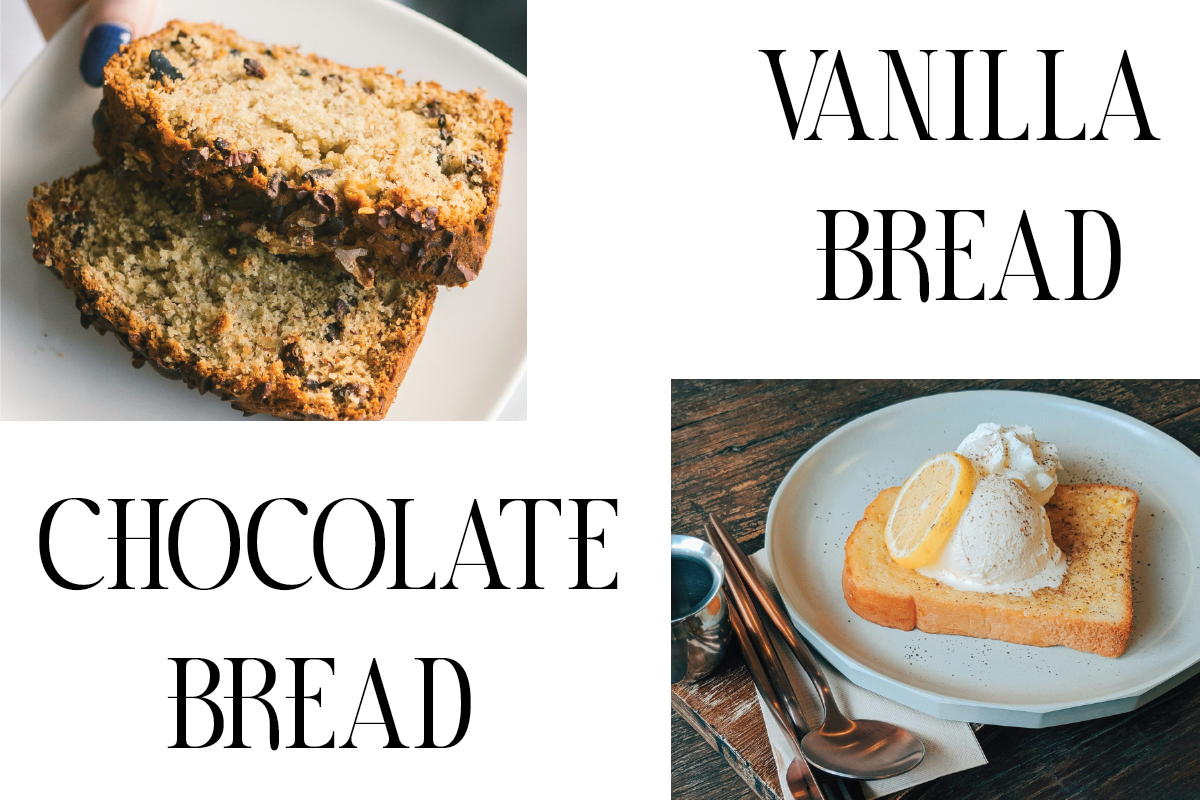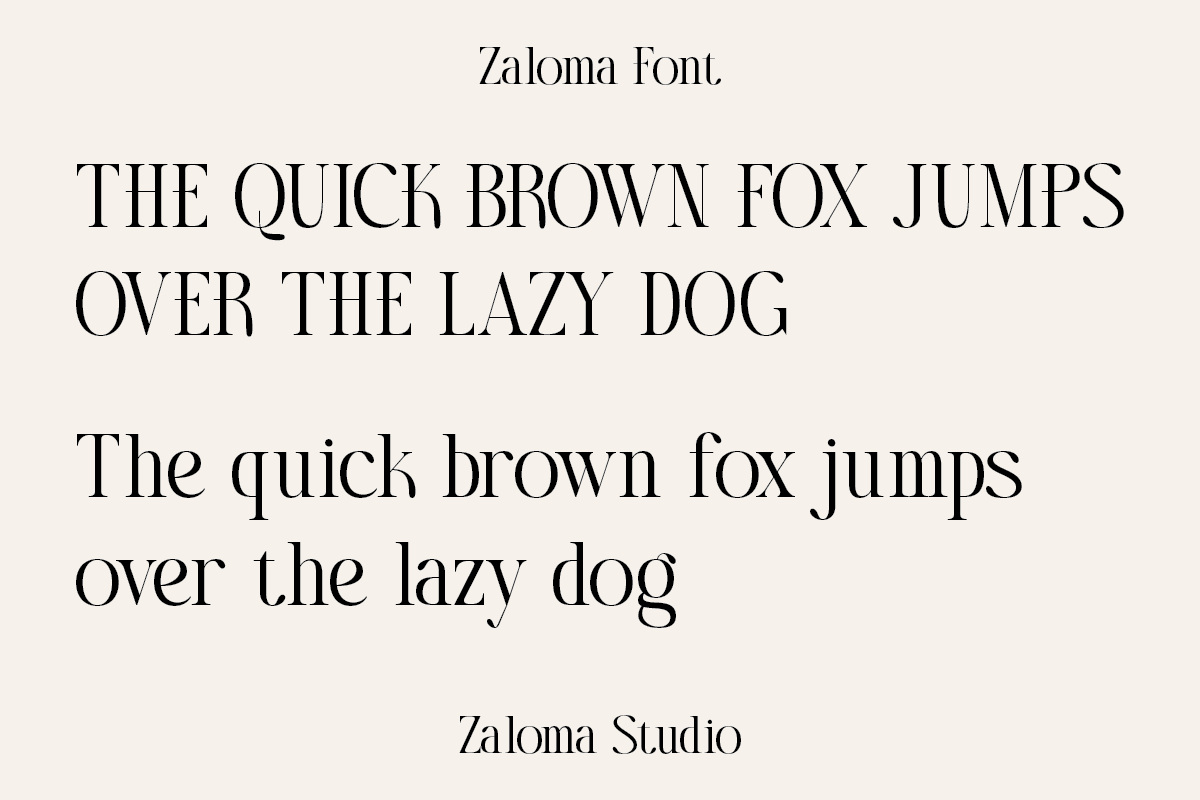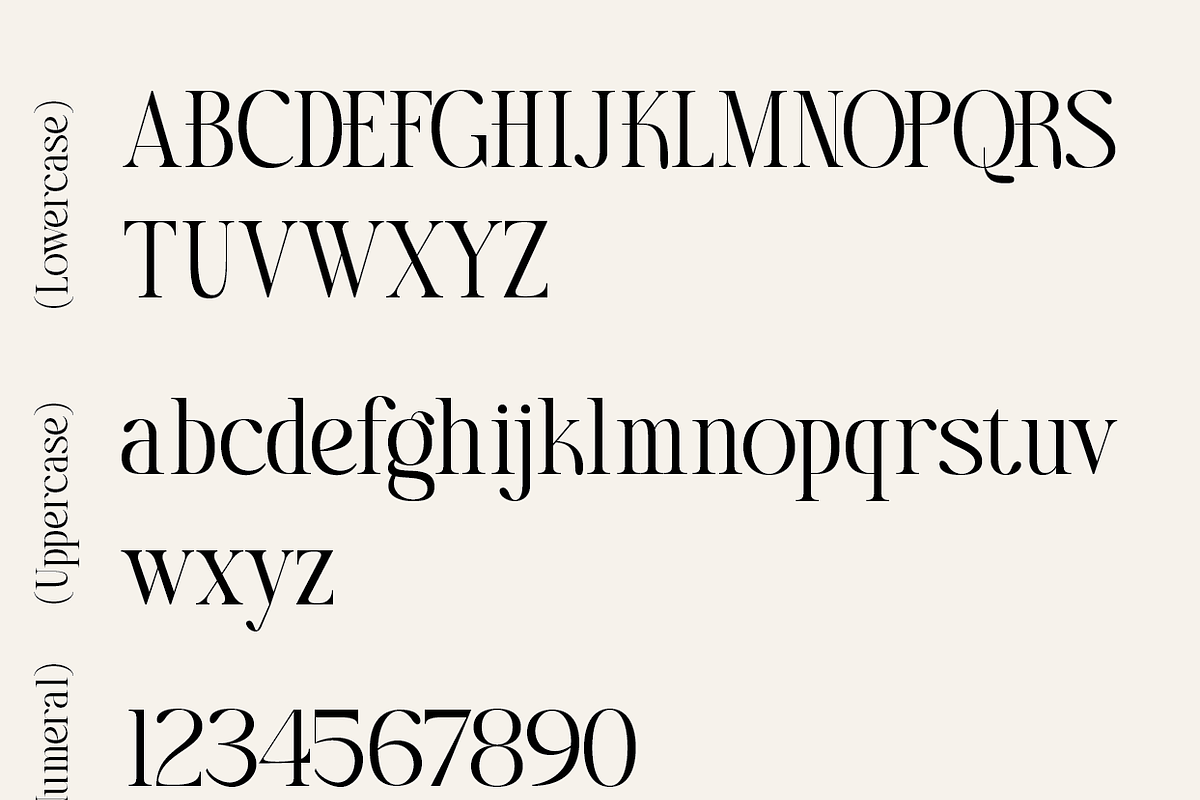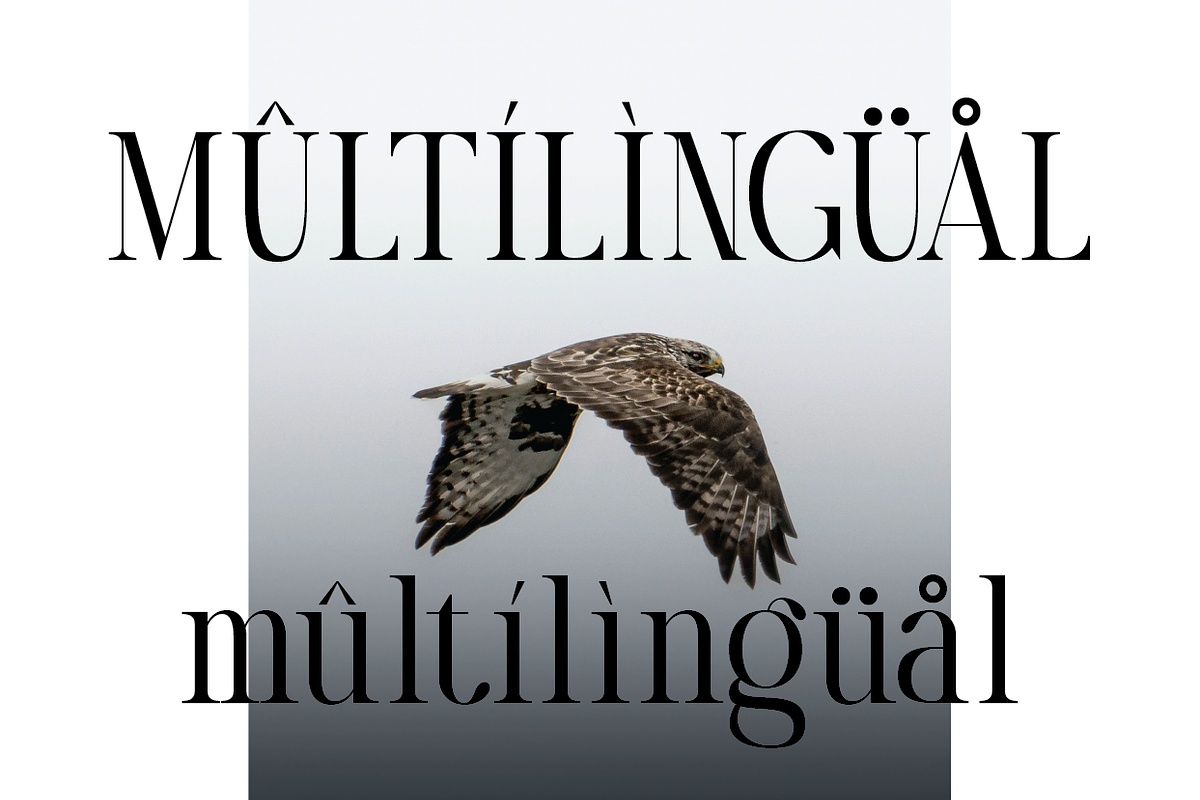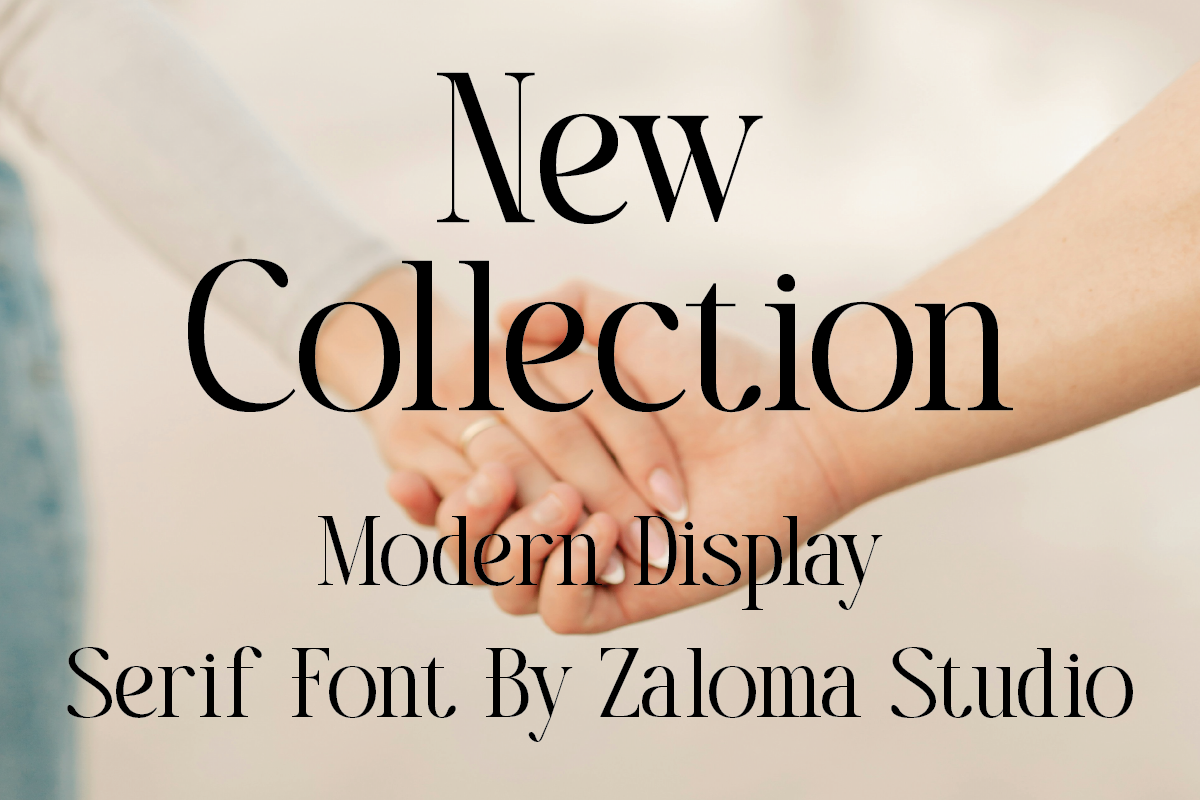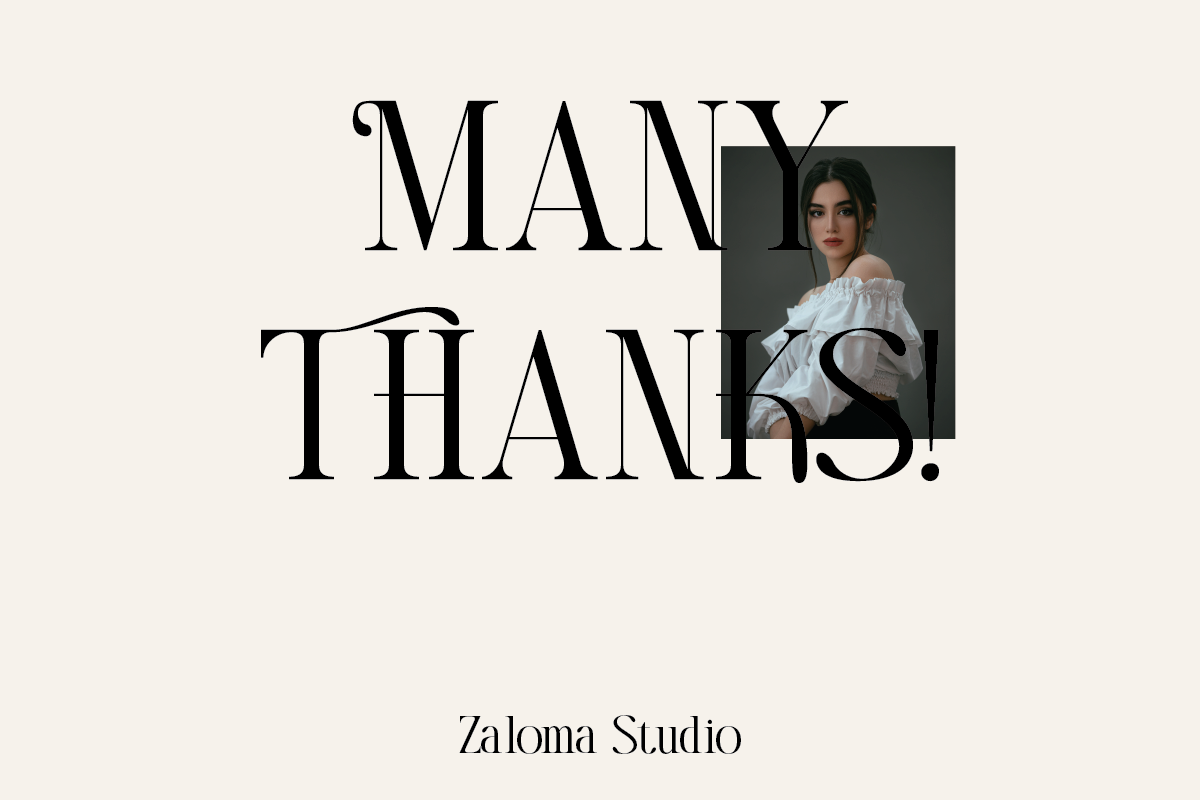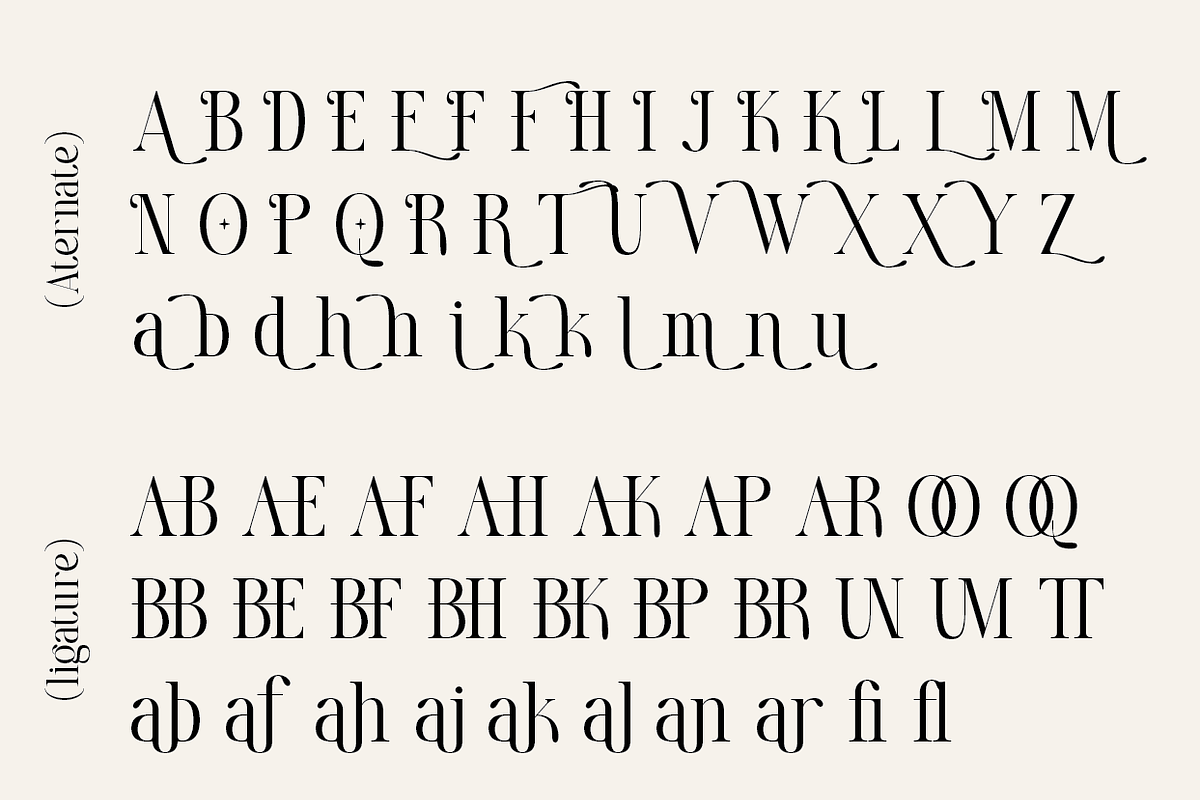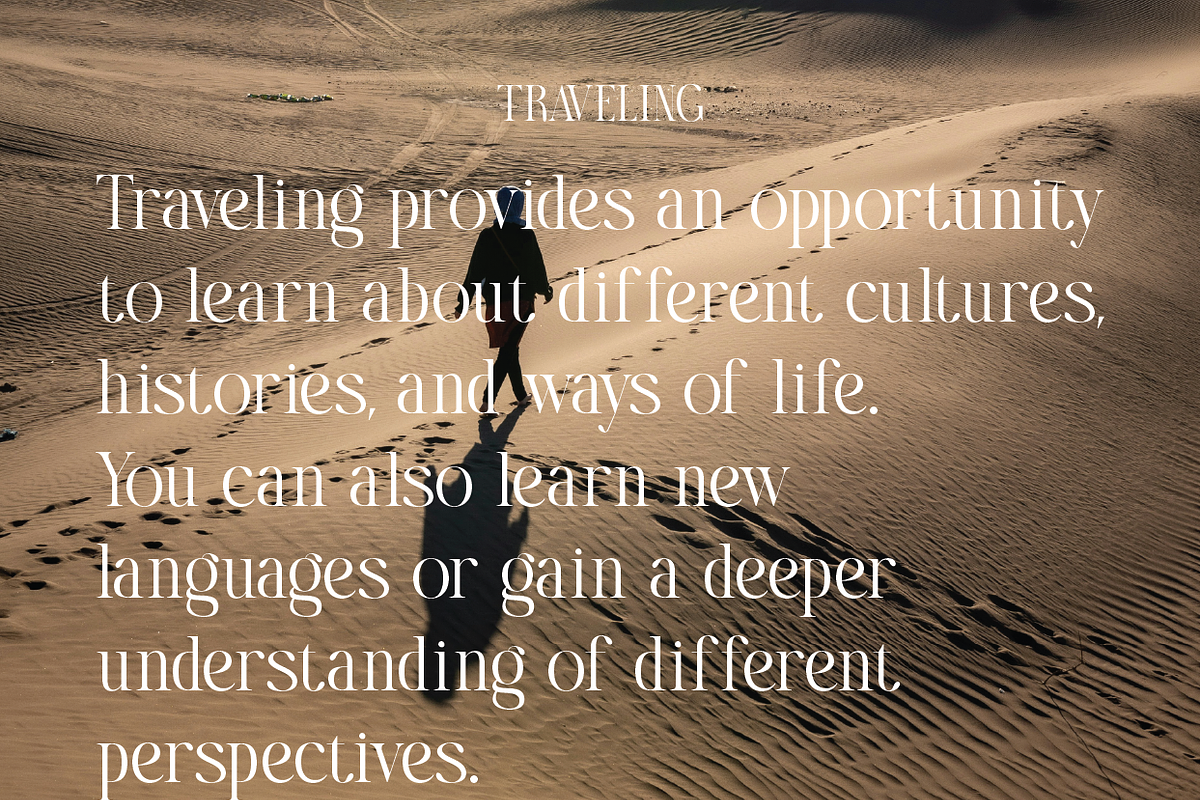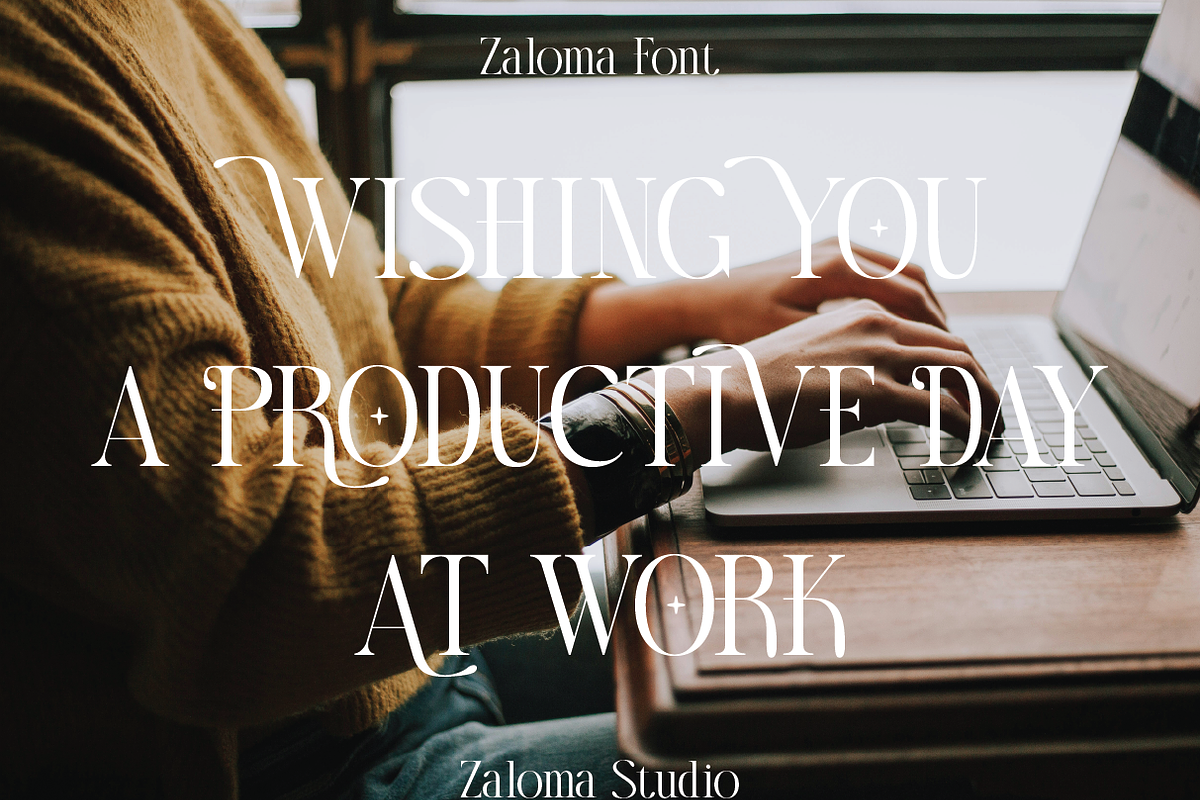
Zaloma
Presents the complete character set of the Zaloma font, including uppercase letters, lowercase letters, and numerals. This serif font has a unique appearance with distinctive typographic details in certain letters.